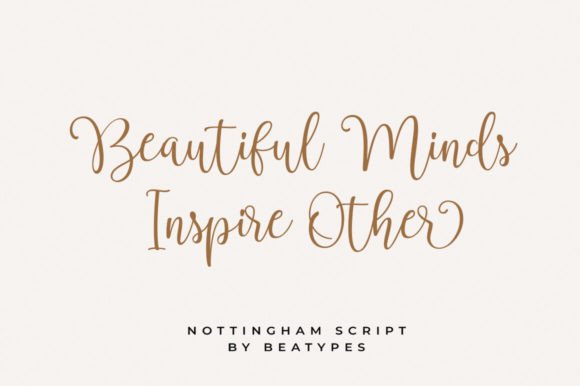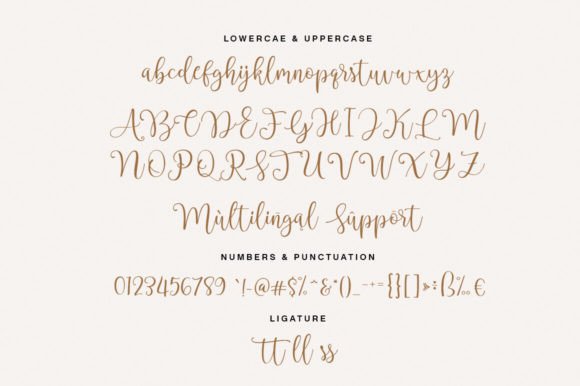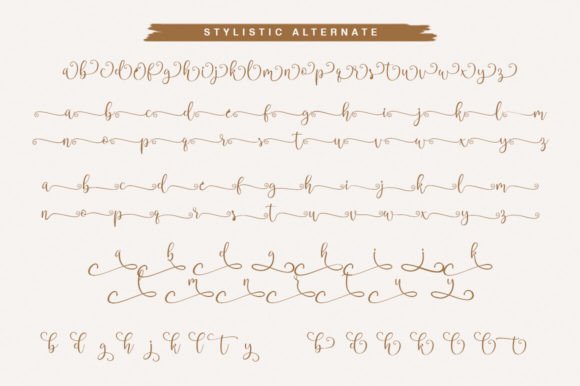
Introduction to Nottingham Font Font
Fonts play a crucial role in design, and the Nottingham Font font is a typeface that brings both character and versatility to any project. Whether you’re working on a branding project, a website, or a print design, the Nottingham Font font offers a unique style that can elevate your work.
Nottingham Script is a beautiful and adorable script handwritten font we designed to easily represent the lovely, fun, and friendly taste/personality.
Nottingham Script would be perfect for invitation, logos & branding, photography, advertisements, watermark, social media posts, product packaging, product designs, label, wedding designs, stationery, special events, or anything that need a beautiful and lovely taste This font is PUA encoded which means you can access all of the amazing glyphs and ligatures with ease.
Key Features of Nottingham Font Font
Why Choose Nottingham Font Font?
The Nottingham Font font is more than just a typeface – it’s a design tool that helps you communicate your message with style and clarity. Its unique character set and versatile design make it suitable for a wide range of applications, from elegant invitations to bold headlines.
With its carefully crafted letterforms and balanced proportions, the Nottingham Font font ensures readability and visual appeal across all mediums.
What makes Nottingham Font font special?
The Nottingham Font font stands out with its unique design, exceptional readability, and versatility across various design applications.